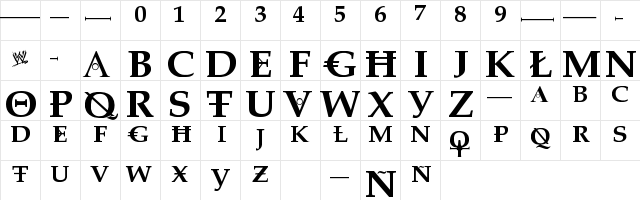
Dreaming of Lilian Regular Font Preview
Dreaming of Lilian Regular
Design Context for Dreaming of Lilian Typeface
Dreaming of Lilian is a composed and adaptable typeface that performs quietly and consistently across a wide range of design contexts.
Pro Tip: Use Dreaming of Lilian in both headline and body roles to test its range before committing to a single application.